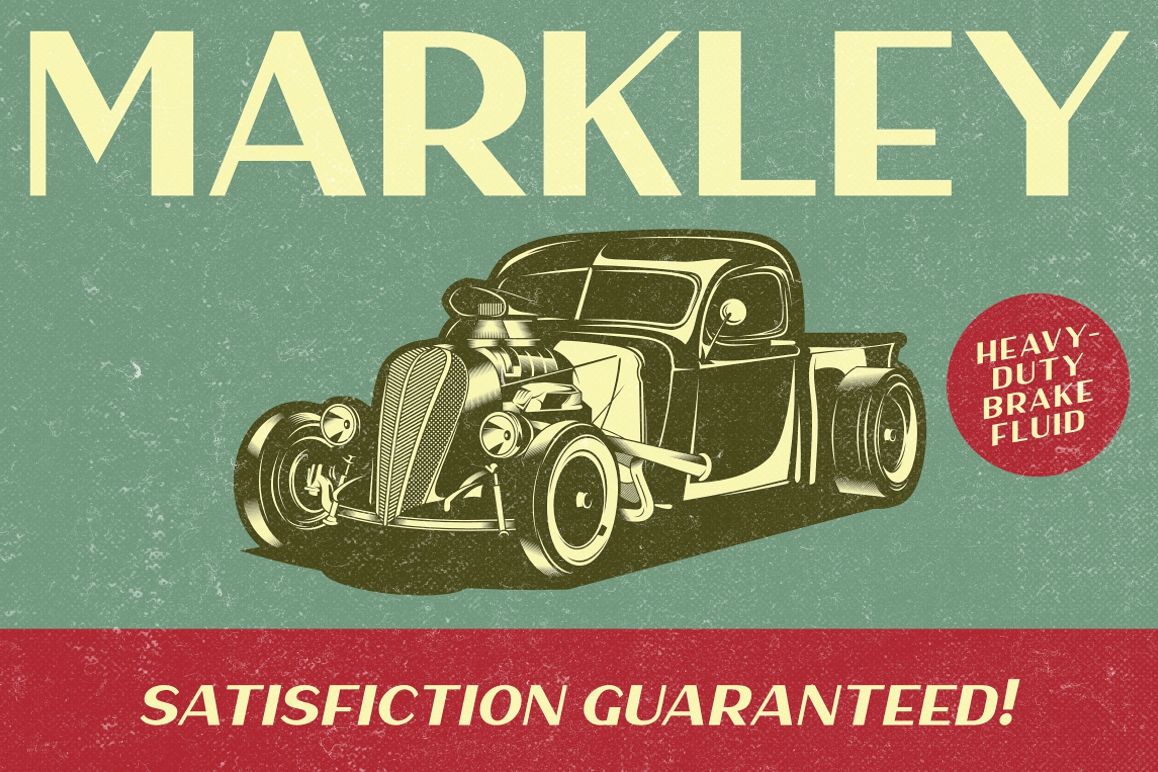
Haarlem Sans
Introducing our new font; Haarlem Sans.
A wide sans-serif font with a touch of classic and art-deco style.
Inspired by the calm and uniqueness of Haarlem town, NL, mixed with the
old style letters that are used in vintage advertisements (product
packaging, posters, etc). Its bold and wide form makes him (yes, he's a
he) suits best as a space killer.
• Alternate characters available.
• Available in two styles; Regular and Italic,